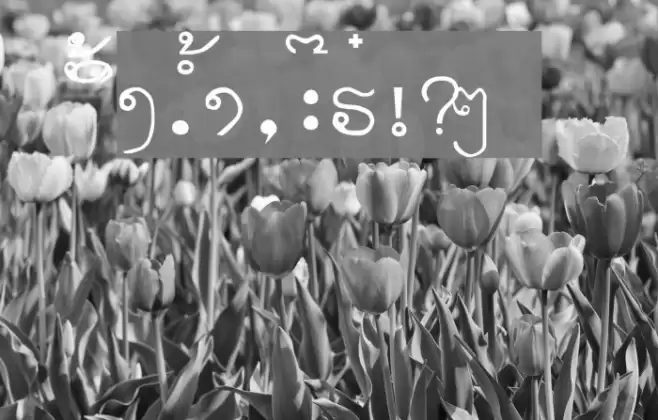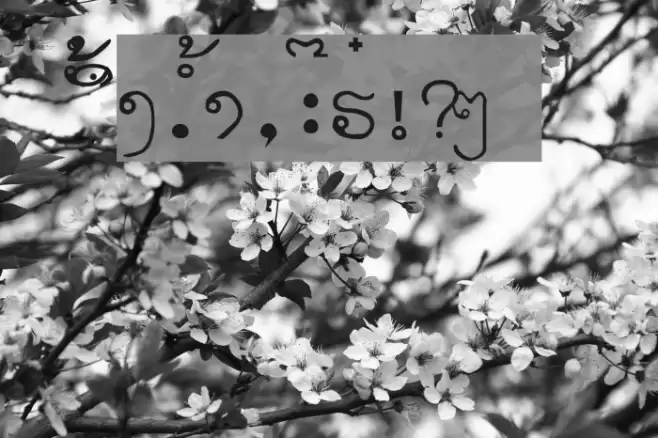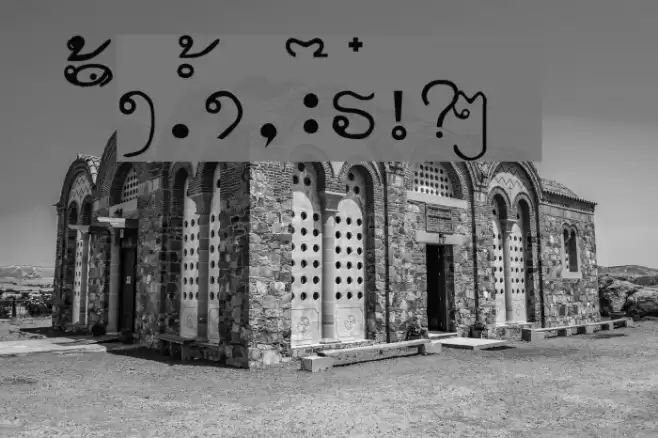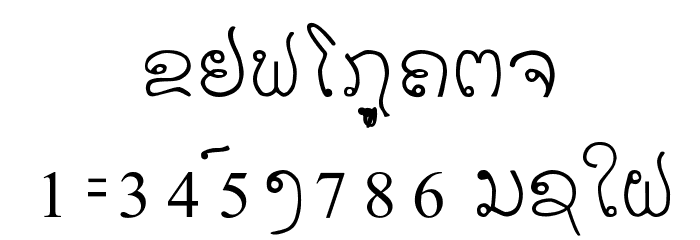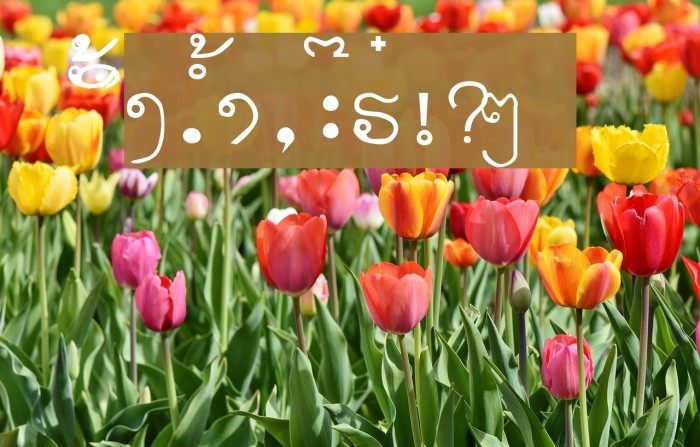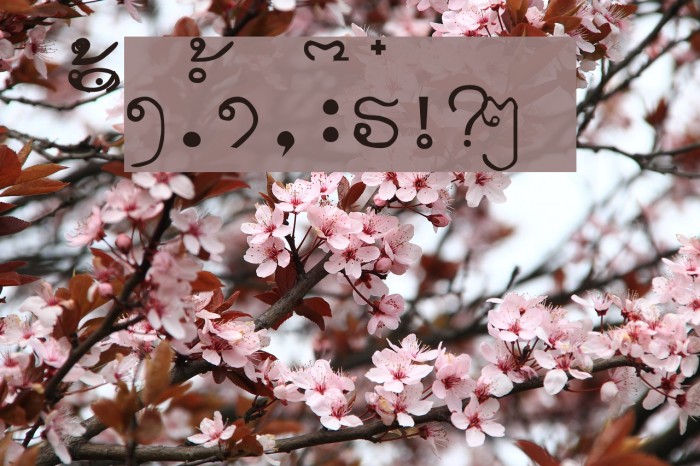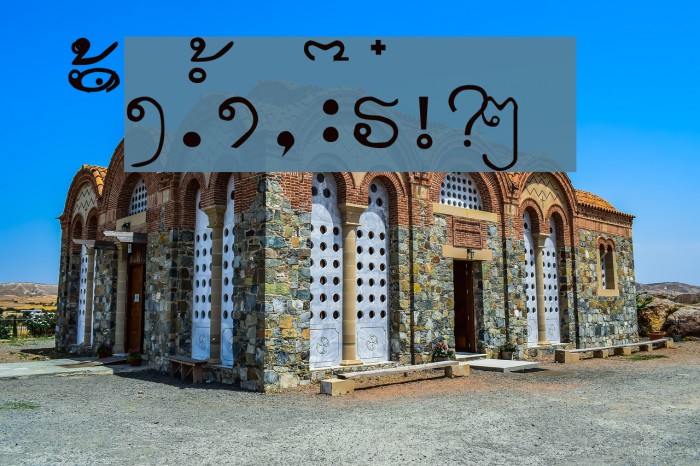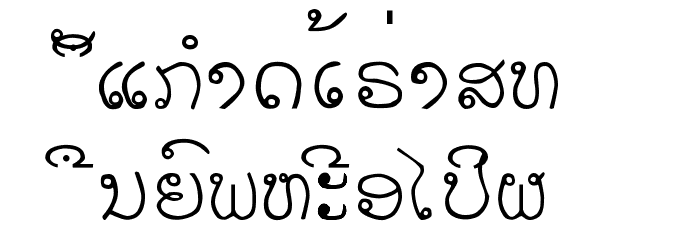
alice_1 Medium Font
alice_1 Medium Description
This font features a unique and decorative style, characterized by its intricate and ornate letterforms. The characters exhibit a playful and artistic flair, with swirls and embellishments that add a touch of whimsy. The overall appearance is both elegant and distinctive, making it suitable for creative and expressive design projects. The font maintains a consistent stroke width, providing a balanced and harmonious look across all characters. Its artistic nature makes it stand out, offering a visually appealing option for various design applications.
A decorative and ornate font with playful swirls and embellishments from Uncategorized fonts.